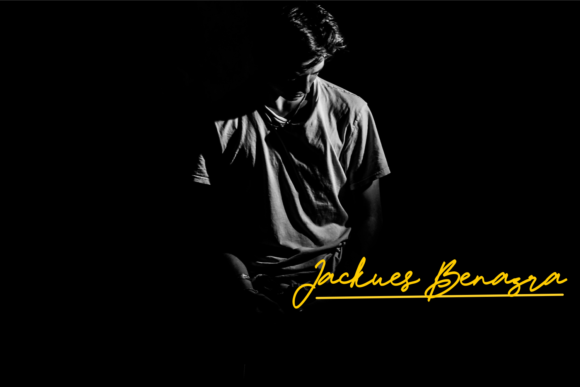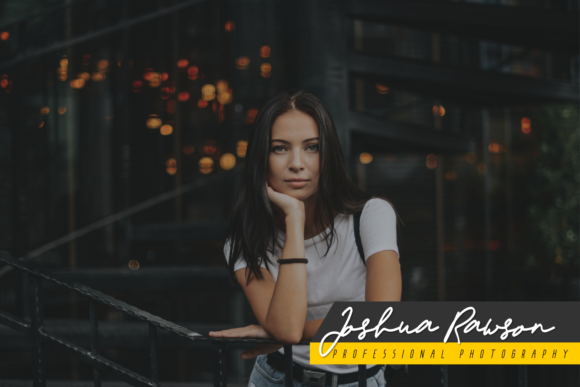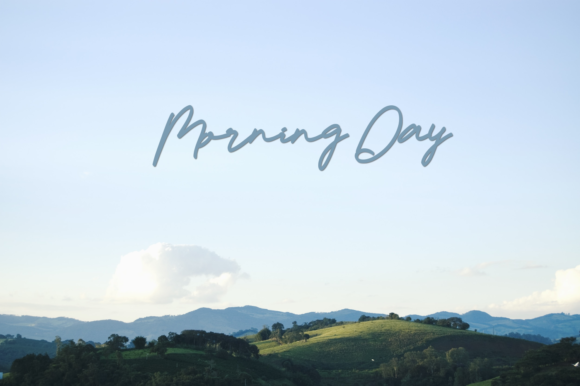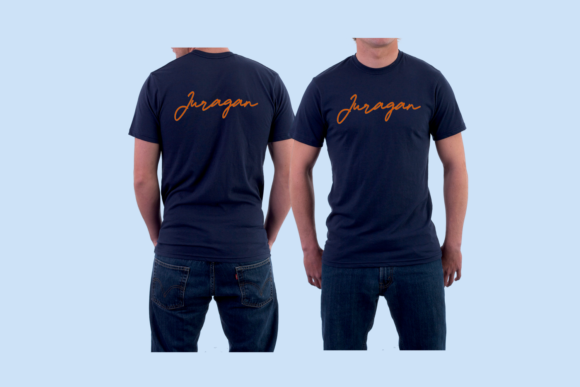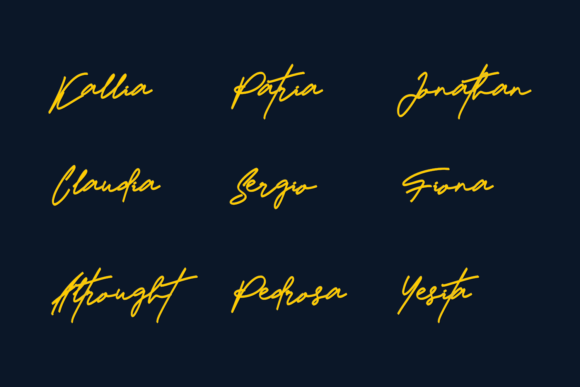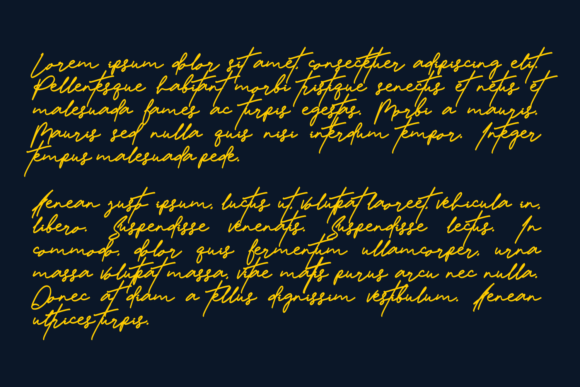
Fentia Font: The Perfect Blend of Authenticity and Luxury
In the world of typography, fonts play a crucial role in bringing creative ideas to life. Among the numerous fonts available, Fentia Font stands out for its unique blend of authenticity and luxury. This enchanting script font has the power to transform any design into a true standout, making it a favorite among designers and crafters.
The Charm of Fentia Font
Fentia Font embodies the perfect balance of sophistication and playfulness. Its elegant strokes and curves evoke a sense of luxury, while its childlike charm adds a touch of playfulness. This font is perfect for designers and crafters looking to add a personal touch to their projects. Whether you’re working on a kids’ project, a school assignment, or a professional design, Fentia Font is sure to make it shine.
Unleashing Creativity with Fentia Font
One of the most significant advantages of Fentia Font is its versatility. Its unique style allows designers to experiment with various creative ideas, making it an excellent choice for a wide range of projects. From greeting cards to posters, and from craft projects to professional designs, Fentia Font can be used in numerous ways.
Kids and School Projects
Fentia Font is particularly suitable for kids and school projects. Its childlike playfulness and elegant strokes make it perfect for:
• Creating eye-catching posters and flyers for school events
• Designing colorful and engaging worksheets and activity sheets
• Developing creative writing projects, such as stories and poems
• Adding a personal touch to school assignments and projects
Professional Designs
Fentia Font is not just limited to kids and school projects. Its luxurious feel and elegant strokes make it an excellent choice for professional designs, such as:
• Creating sophisticated logos and branding materials
• Designing elegant business cards and letterheads
• Developing eye-catching posters and advertisements
• Adding a touch of luxury to packaging designs
Why Choose Fentia Font?
With so many fonts available, why choose Fentia Font? Here are a few reasons:
• Unique Style: Fentia Font has a distinctive style that sets it apart from other fonts.
• Versatility: Fentia Font can be used in various projects, from kids’ projects to professional designs.
• Elegance: Fentia Font adds a touch of luxury and sophistication to any design.
• Playfulness: Fentia Font’s childlike charm makes it perfect for kids and school projects.
Tips for Using Fentia Font
To get the most out of Fentia Font, here are a few tips:
• Experiment with different sizes: Fentia Font looks great in various sizes, from small to large.
• Pair it with other fonts: Fentia Font can be paired with other fonts to create a unique and interesting design.
• Use it for headings and titles: Fentia Font is perfect for headings and titles, adding a touch of luxury and sophistication.
• Don’t be afraid to get creative: Fentia Font is a versatile font that can be used in various creative ways.
Fentia Font is a unique and versatile font that embodies authenticity and luxury. Its enchanting script style and childlike playfulness make it perfect for a wide range of projects, from kids’ projects to professional designs. With its elegance, sophistication, and playfulness, Fentia Font is sure to turn any creative idea into a true standout. So, get creative with Fentia Font and brighten up your next project!